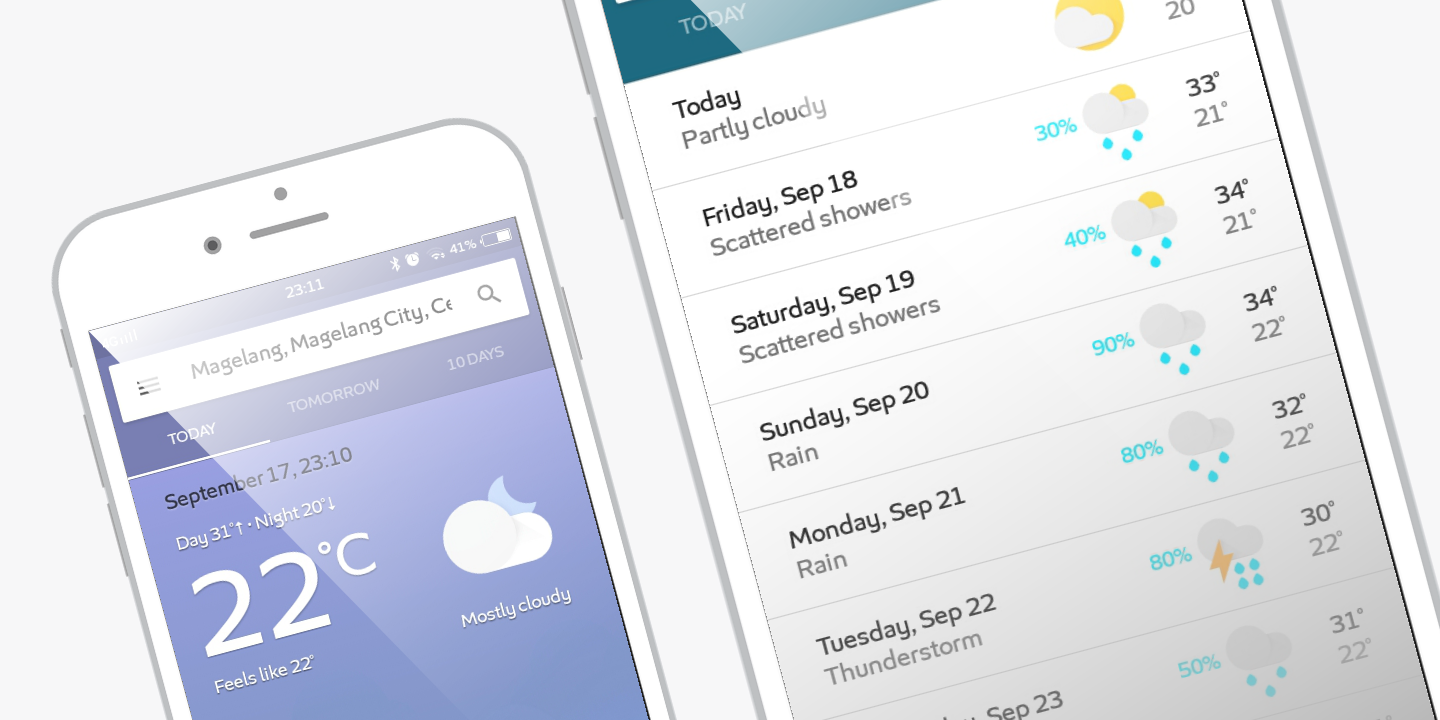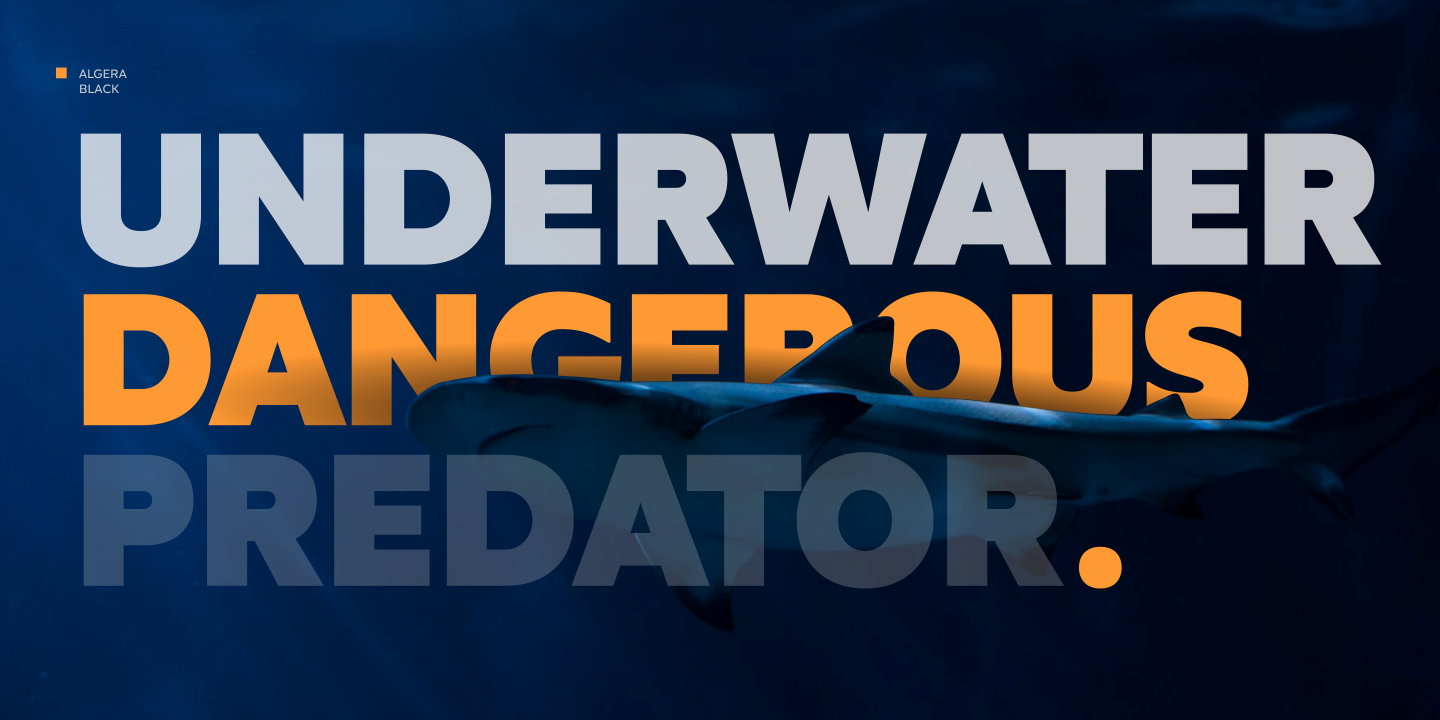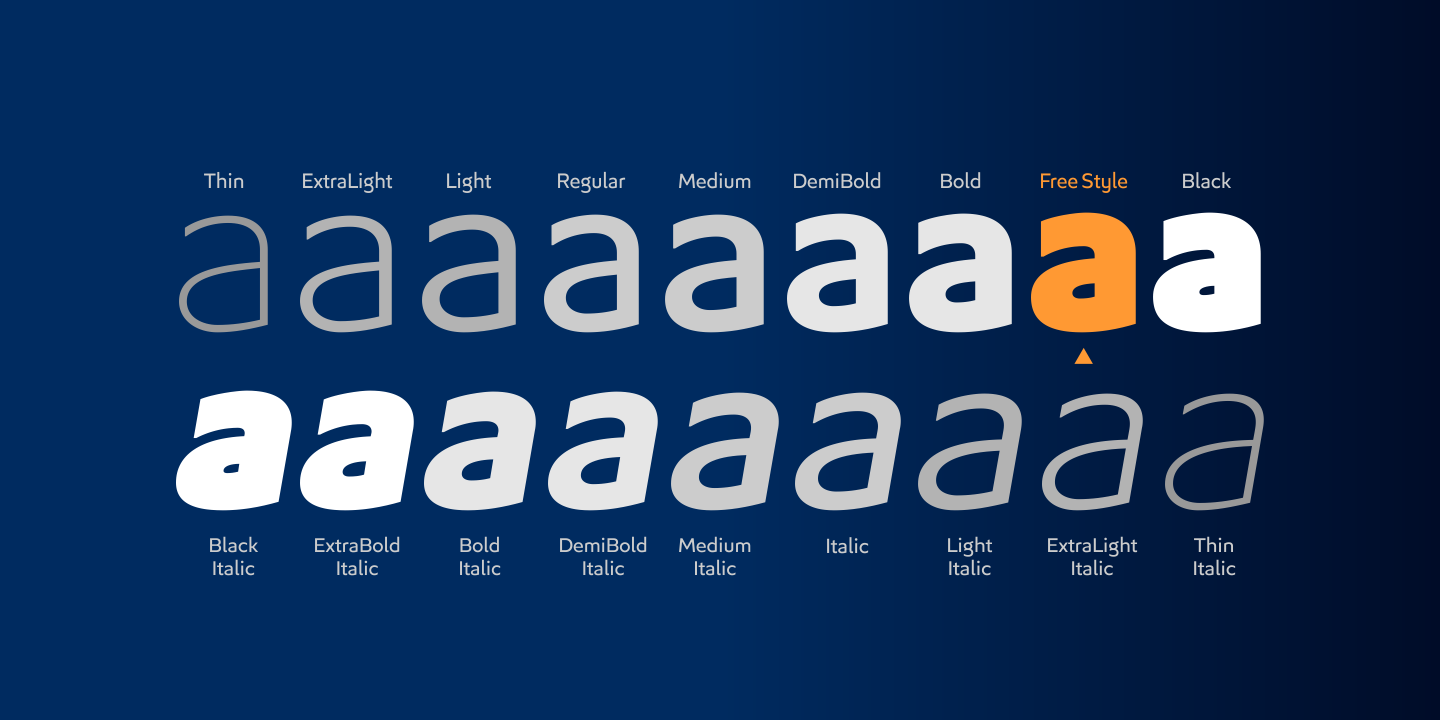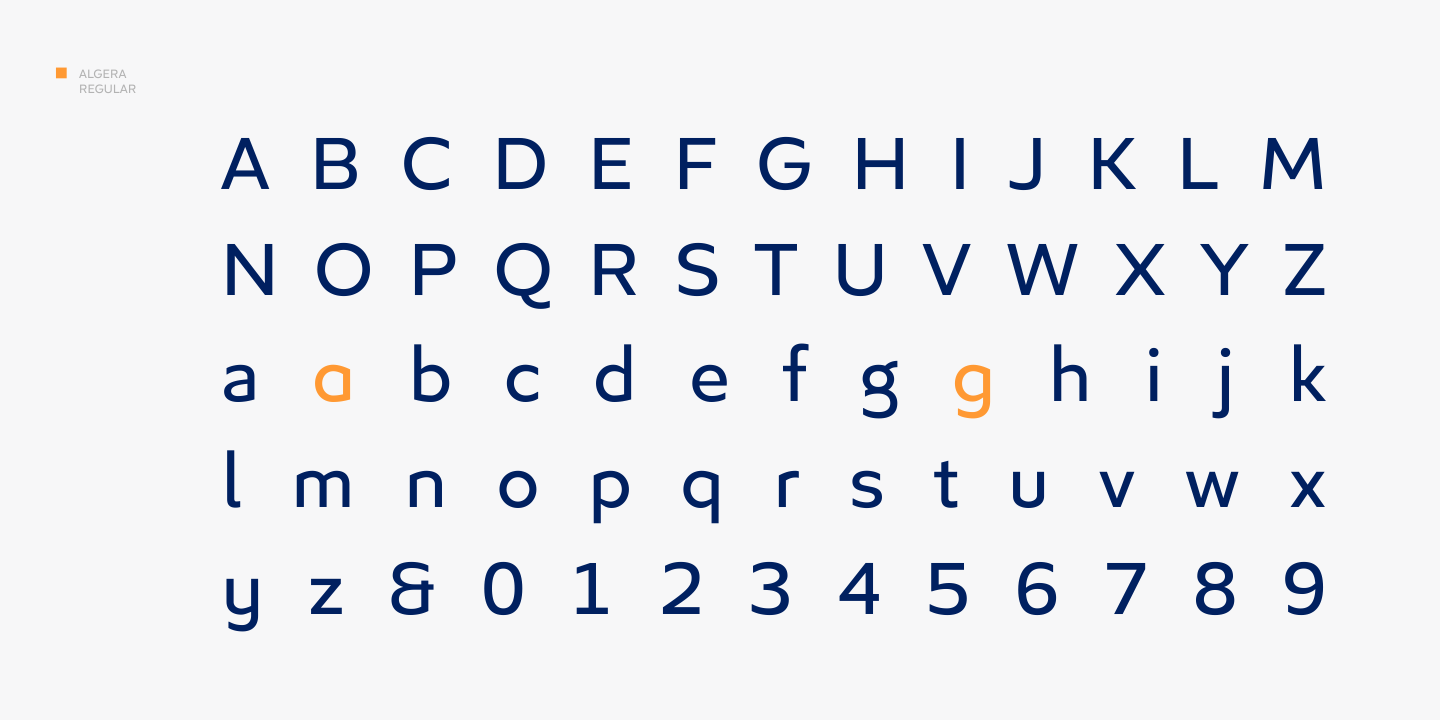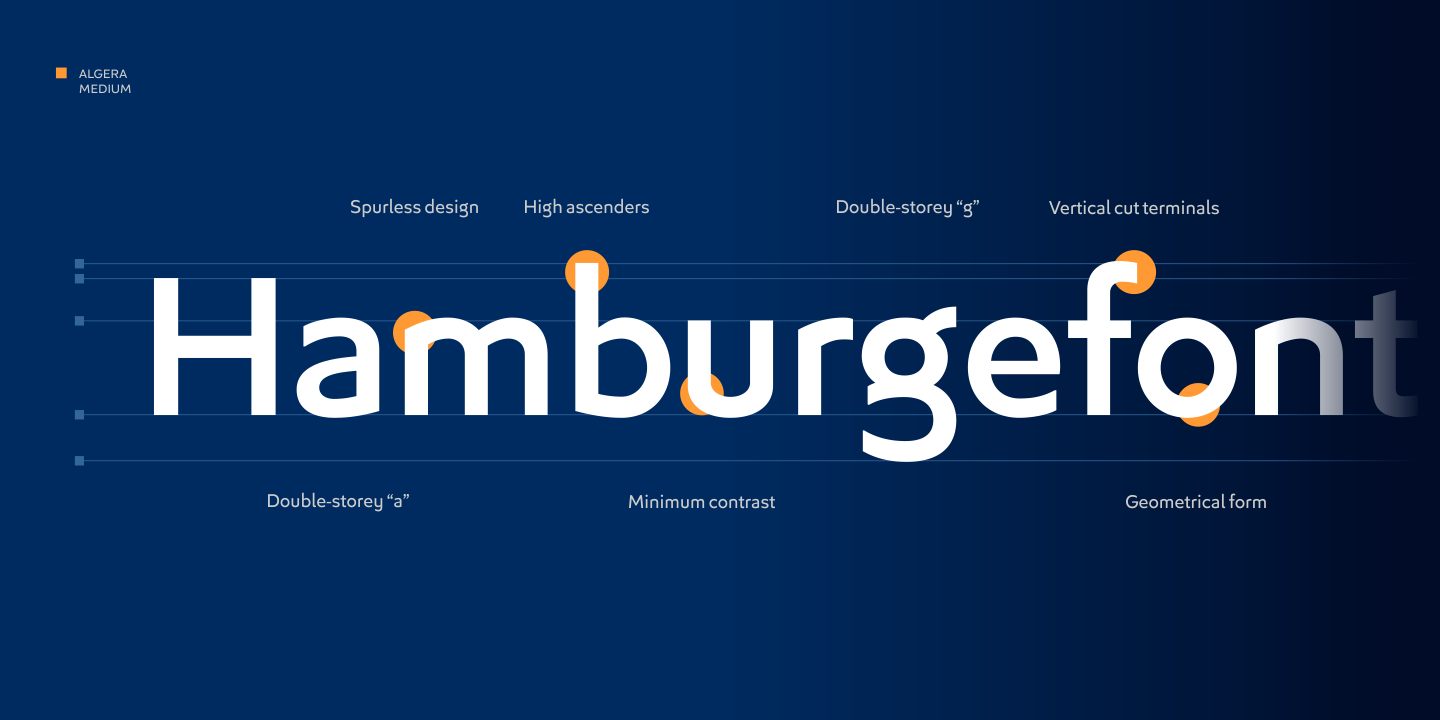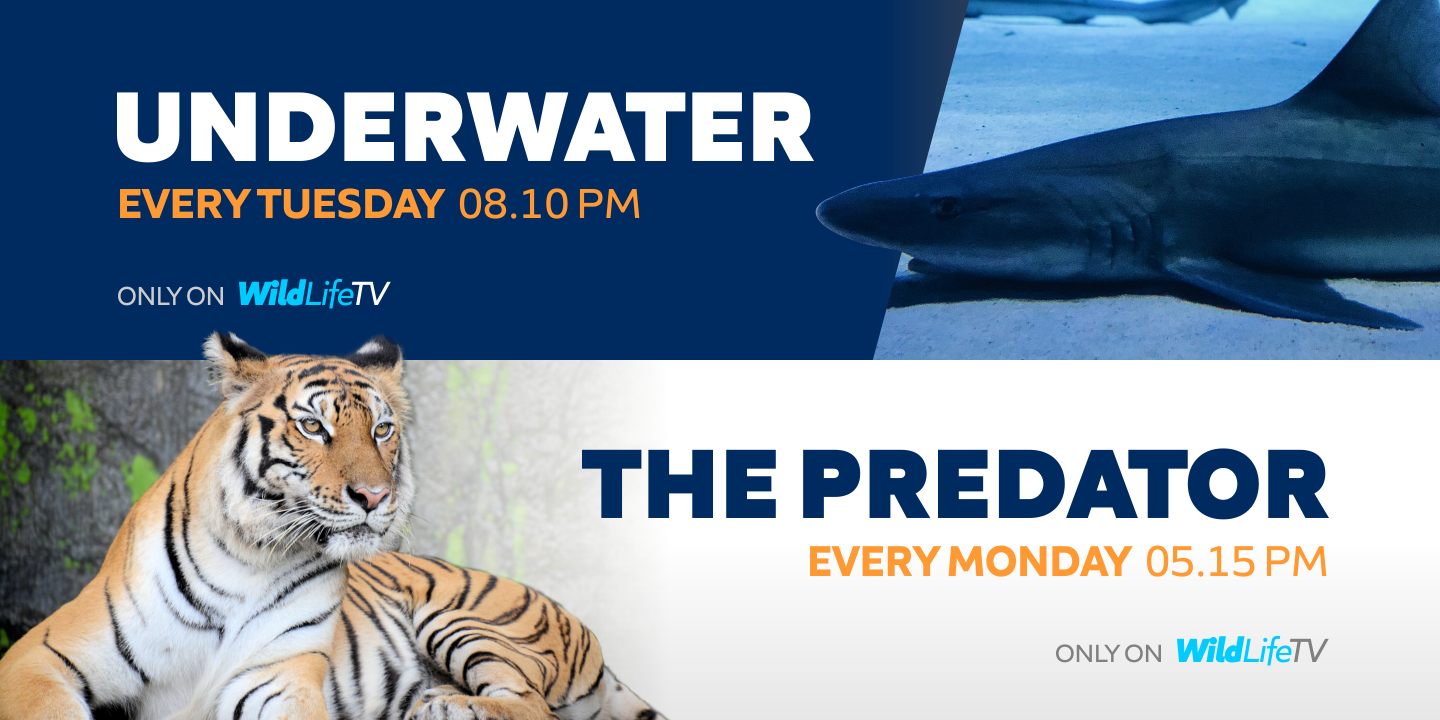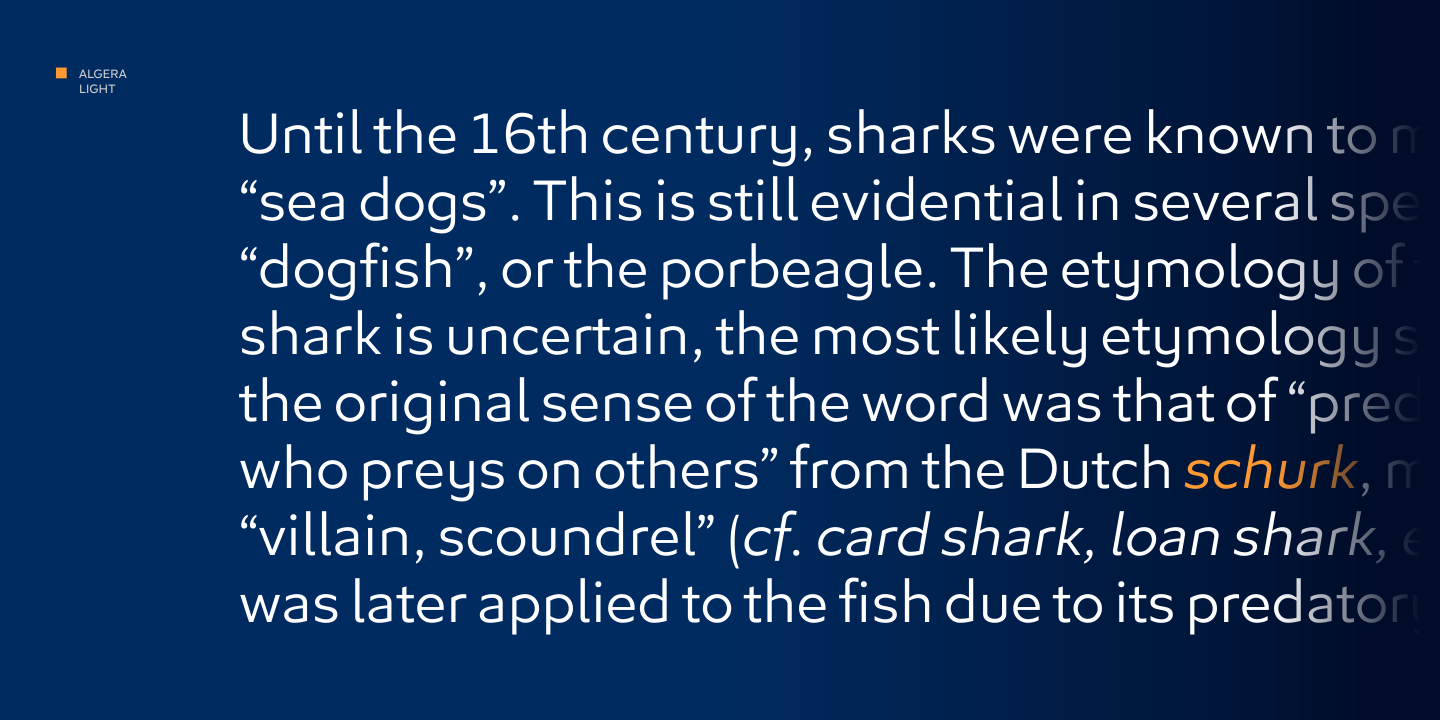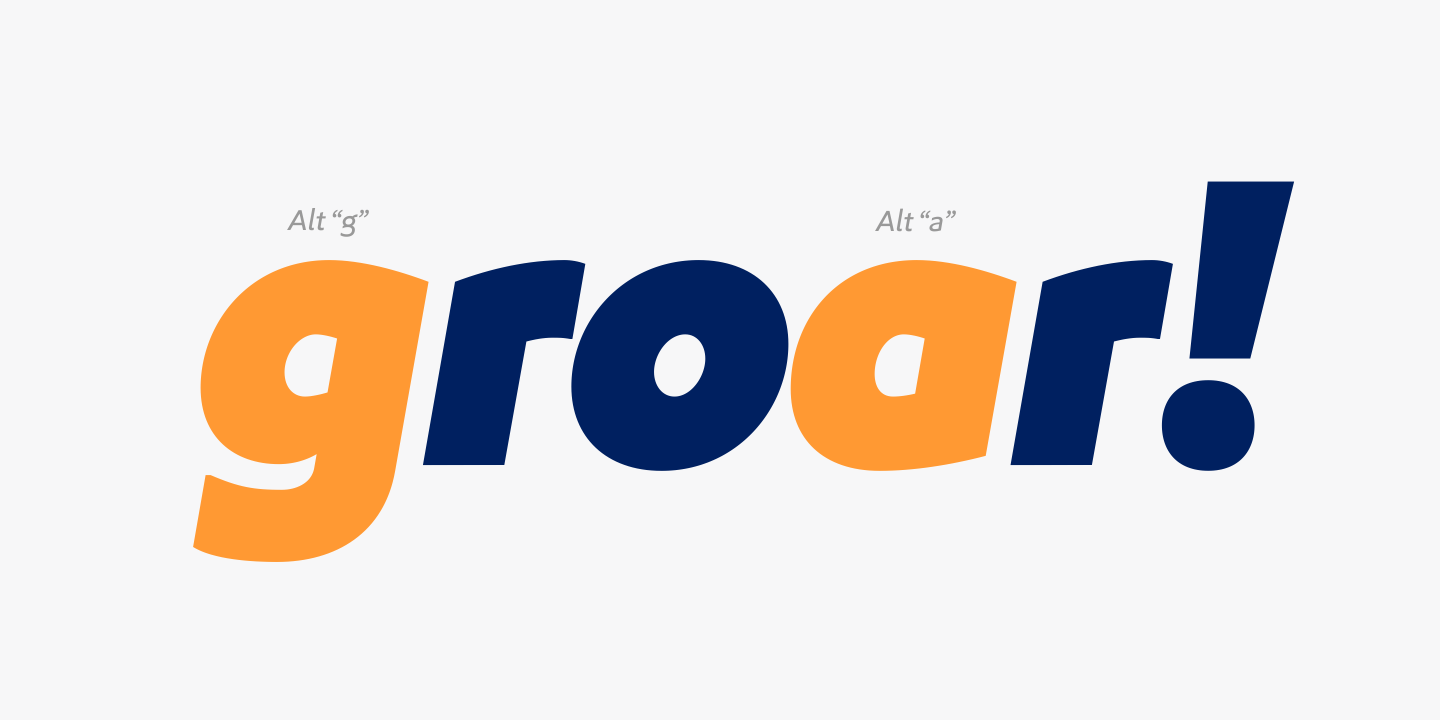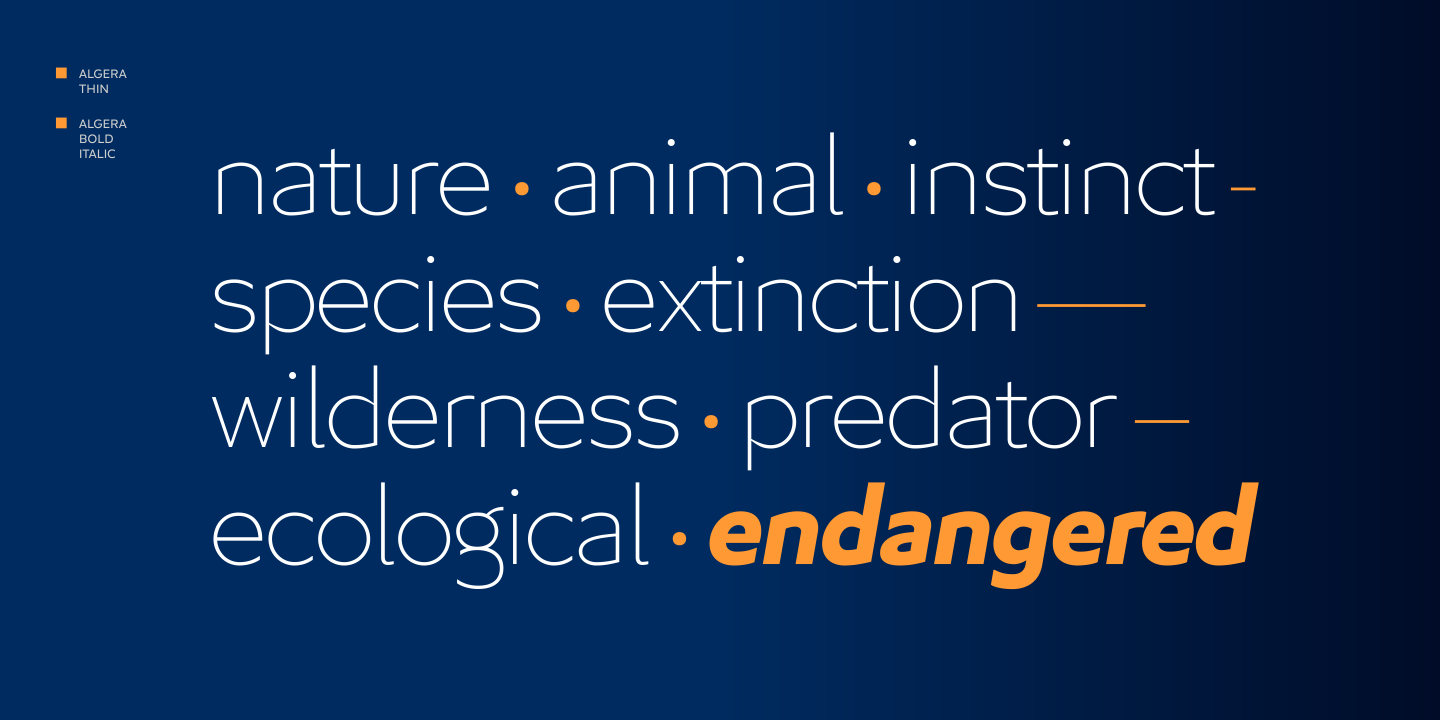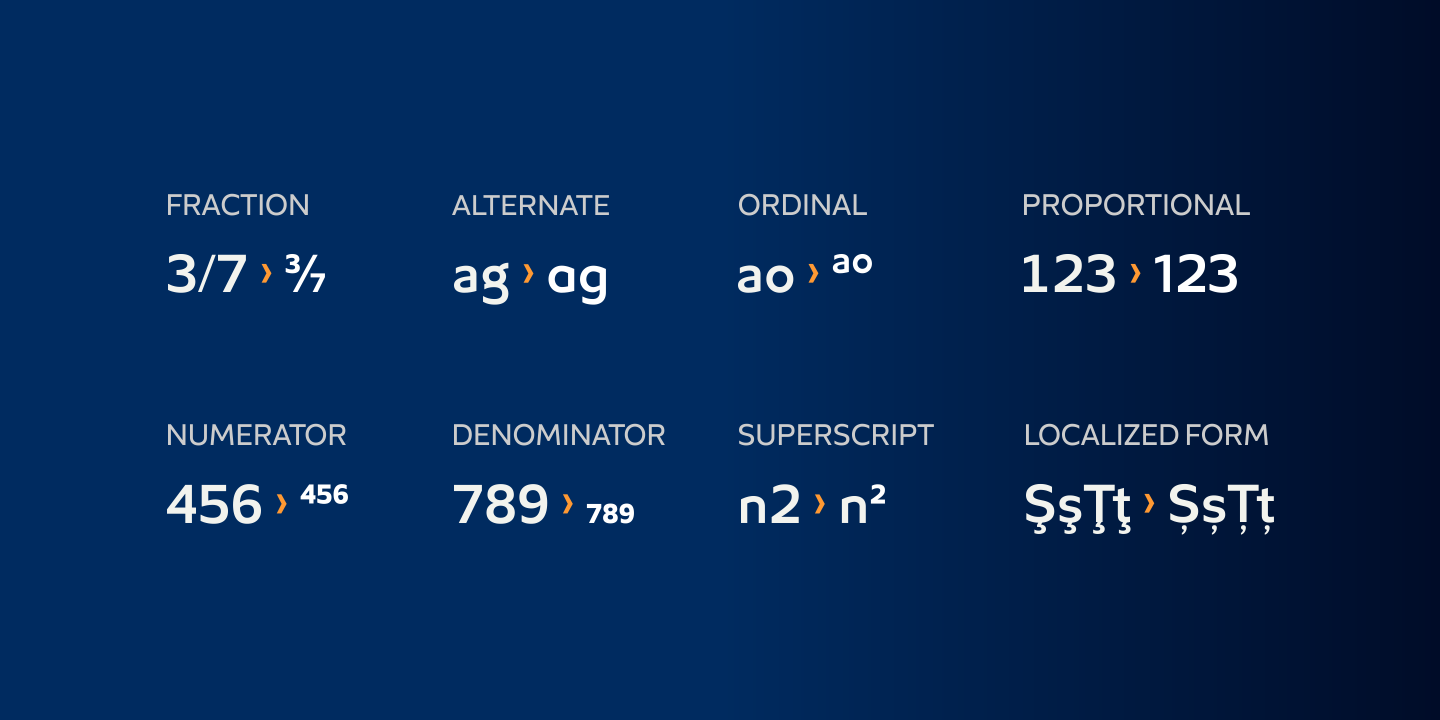
It is spurless, minimum contrast with vertical cut terminals, and it is called Algera. It sounds strong and wild, doesn't it? This font family comes in 9 weights from Thin to Black with matching italics.
Each family member of Algera also equipped with useful OpenType features such as Ordinals, Superscripts, Subscripts, Stylistic Alternates, Stylistic Sets, Proportional Lining, Standard Ligatures, Fractions, Localized Forms, also Numerators & Denominators. Each font has 490+ glyphs which covers Western & Eastern Europe, and other Latin based languages – over 200 languages supported!
Algera will give you a different touch to your creative projects. This typeface will be a great choice for logos, posters, presentations, headlines, lettering, branding, quotes, titles, magazines, headings, web banners, mobile applications, art quotes, advertising, packaging design, book title, and more!